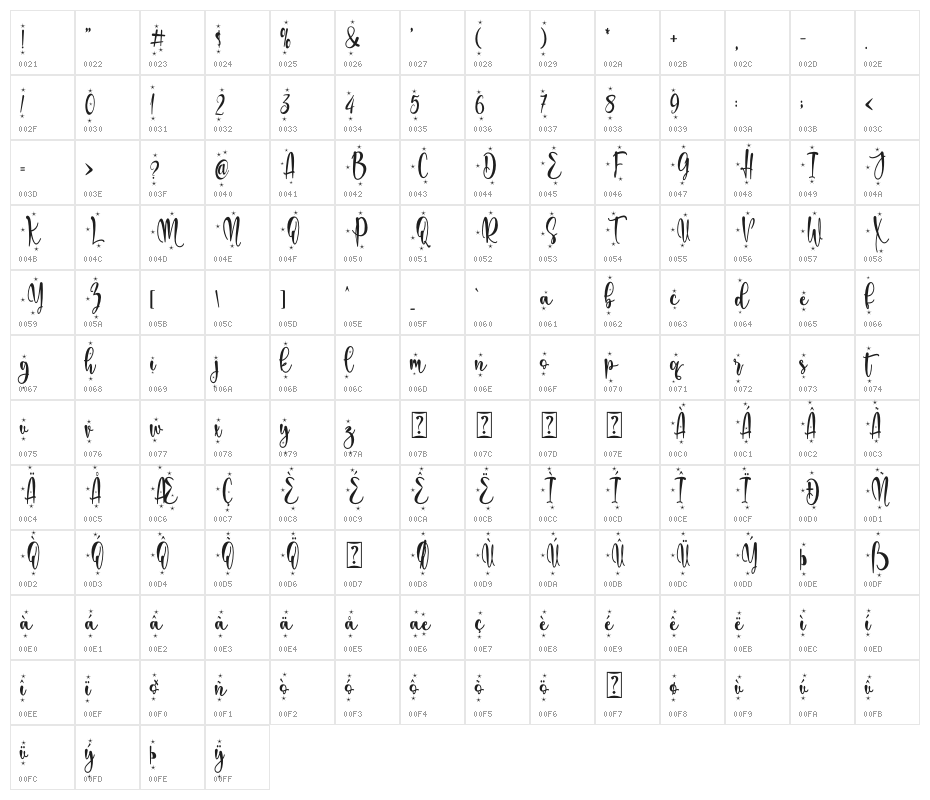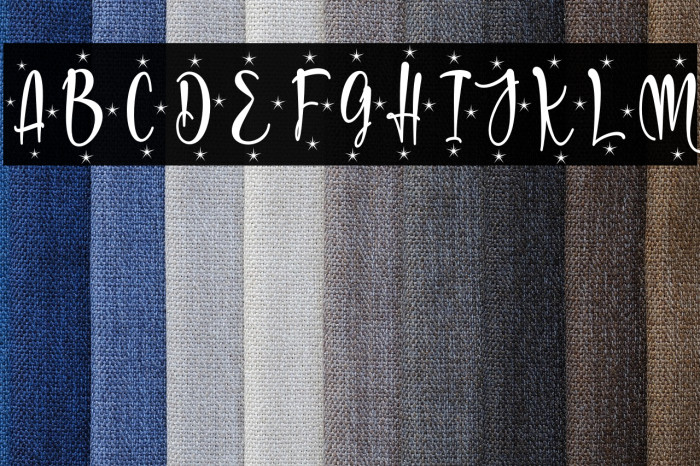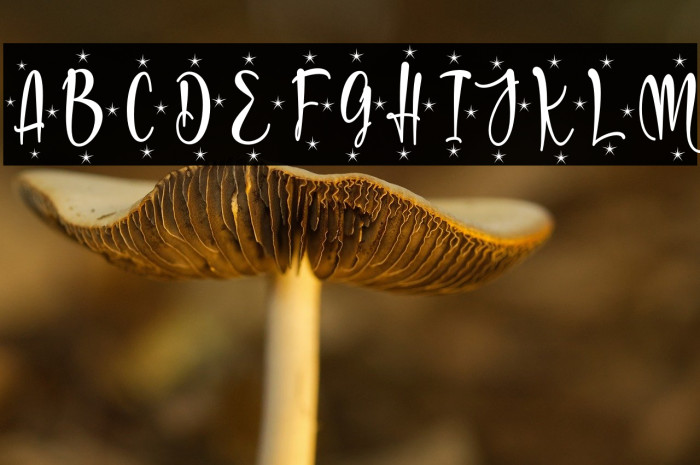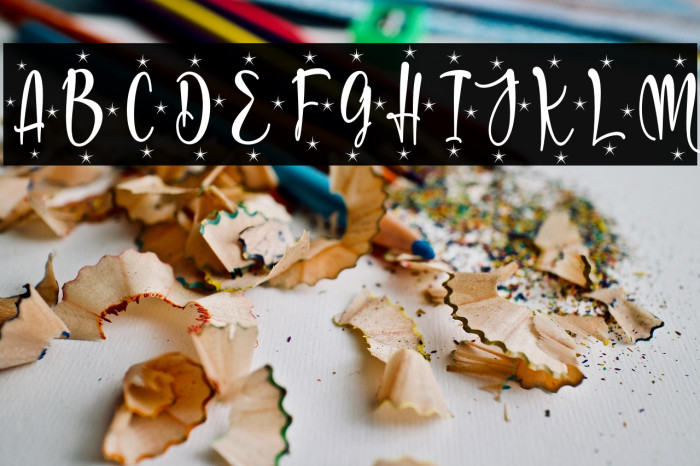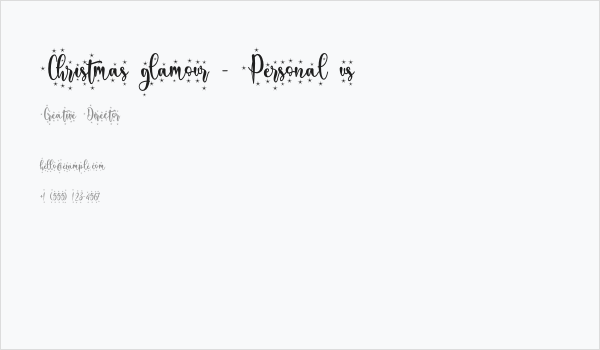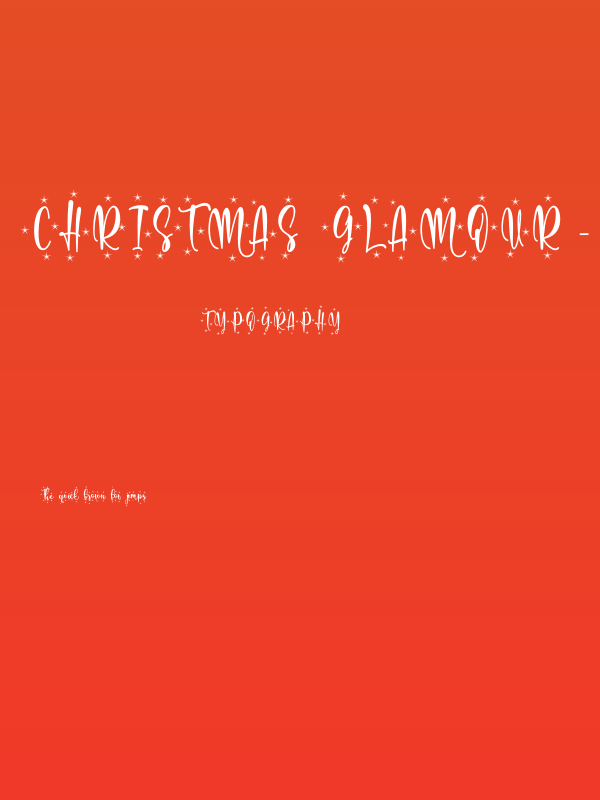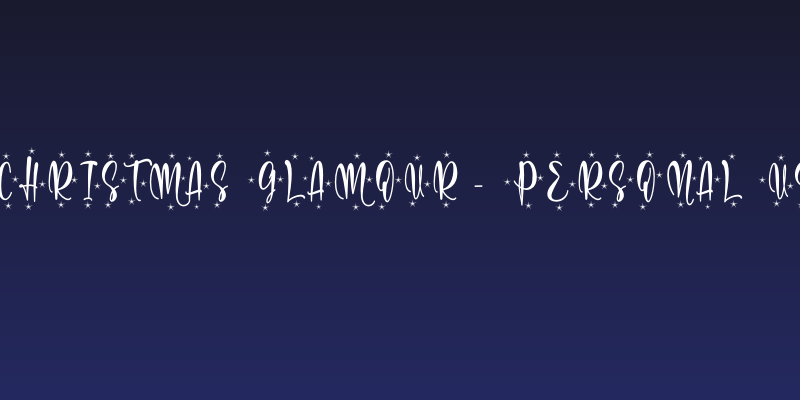
Christmas glamour - Personal us Font
Christmas glamour - Personal us Description
This font exudes a festive and glamorous style, perfect for holiday-themed projects. The uppercase letters are adorned with decorative stars, adding a whimsical touch. The lowercase letters maintain a smooth, cursive flow, enhancing its elegant appearance. The numerals and special characters are consistent with the overall playful and celebratory theme. This font is ideal for creating eye-catching designs that require a touch of sparkle and charm.
| Use Case | Headlines, Logos, Decorative text |
| Proposed Projects | Ideal for holiday cards, festive invitations, seasonal branding, and decorative posters. |